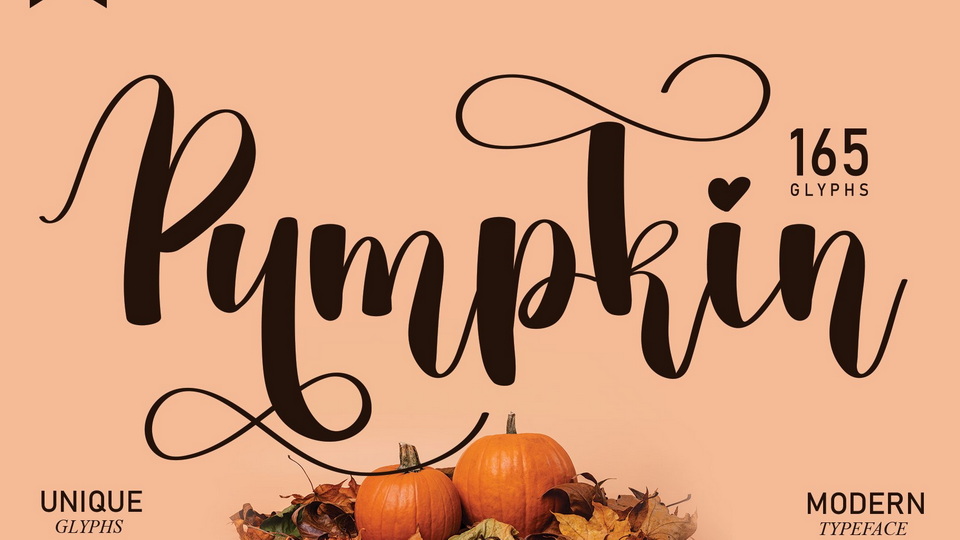
Download Pumpkin font, a romantic and sweet calligraphy typeface with a bouncy look. Pumpkin font is perfect for your creative ideas, both formal and informal.